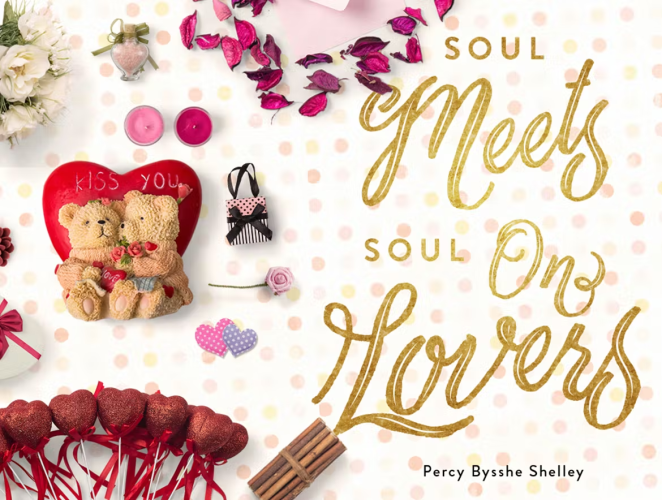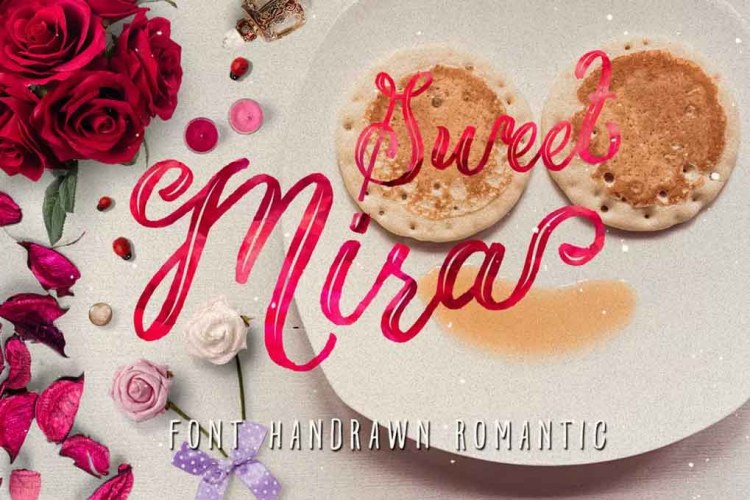
Mira graphic Font
extra graphic pack watercolor and swirl mira script was completely handwritten using calligraphy brush. Rough edges and imperfect lines give this brush lettered font a u…
extra graphic pack watercolor and swirl
mira script was completely handwritten using calligraphy brush. Rough edges and imperfect lines give this brush lettered font a unique and trendy look. The Features of this fonts is :
Stylistic Alternates Contexual Alternates
Perfect for wedding invitations, adding design accents, and giving your projects a coveted hand crafted look. I especially love the look of this font with watercolor textures added
Where Mira graphic Font works best
A short phrase in Mira graphic Font carries warmth that a typeset sans cannot fake; keep the rest of the card plain.
Chalkboard-style headings in Mira graphic Font make a menu feel hand-made. Keep the dish descriptions in a simple face so prices stay readable.
One line of Mira graphic Font over a photo is enough; the script carries the tone and the caption does the work.
What kind of work does Mira graphic Font suit?
It sits in the Script And Handwritten group and reads as calligraphy, handwritten, script, script and handwritten. That makes it a candidate wherever those qualities help: headings, packaging, social graphics and brand work. Set it at the size you plan to use before deciding.